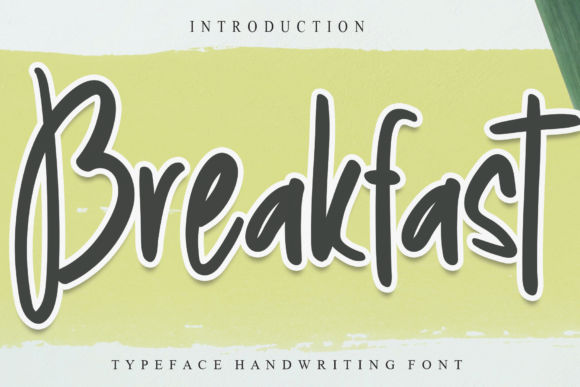
The Sweet Charm of Breakfast Font: A Designer’s Delight
I’ll never forget the morning I stumbled upon the Breakfast font while working on a branding project for a quaint bakery. I was on a mission to find the perfect font that would capture the warmth and elegance of their freshly baked goods. As I scrolled through my font library, Breakfast caught my eye with its delicate swashes and sweet, handwritten charm. It was love at first sight! 💕
An Honest Review of Breakfast Font
• 💫 Elegant and dainty handwritten style that’s perfect for adding a touch of sophistication to any design
• 🎨 Delicate swashes that add a whimsical touch to titles and headings
• 📝 Versatile and adaptable to various design projects, from letterheads to stationery
• 👍 Well-suited for both digital and print designs
While Breakfast font is a stunning addition to any design, there are a few things to keep in mind:
• 🤔 Limited use of uppercase letters, which can make it less suitable for designs that require all-caps text
• ⚠️ Some swashes may not work well with certain letter combinations, requiring manual adjustment
The Story Behind Breakfast Font
According to the font’s creator, Breakfast font was inspired by the delicate, hand-painted signs found in quaint bakeries and cafes. The designer wanted to capture the warmth and elegance of these signs in a font that would be perfect for branding, packaging, and stationery. And so, Breakfast font was born! 🥐
Q: Is Breakfast font suitable for body text?
A: While Breakfast font is beautiful, it’s best suited for titles, headings, and short paragraphs. For longer body text, a clearer font may be more readable.